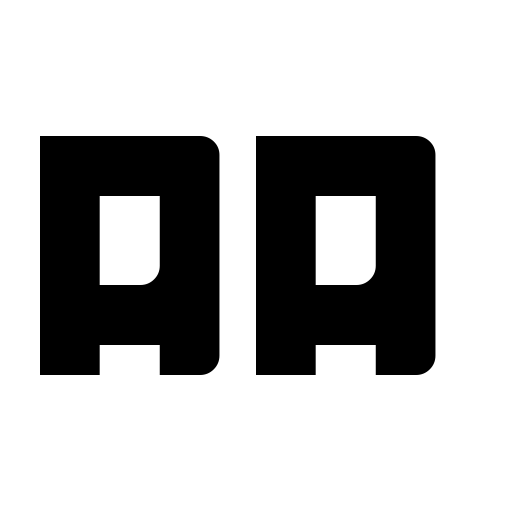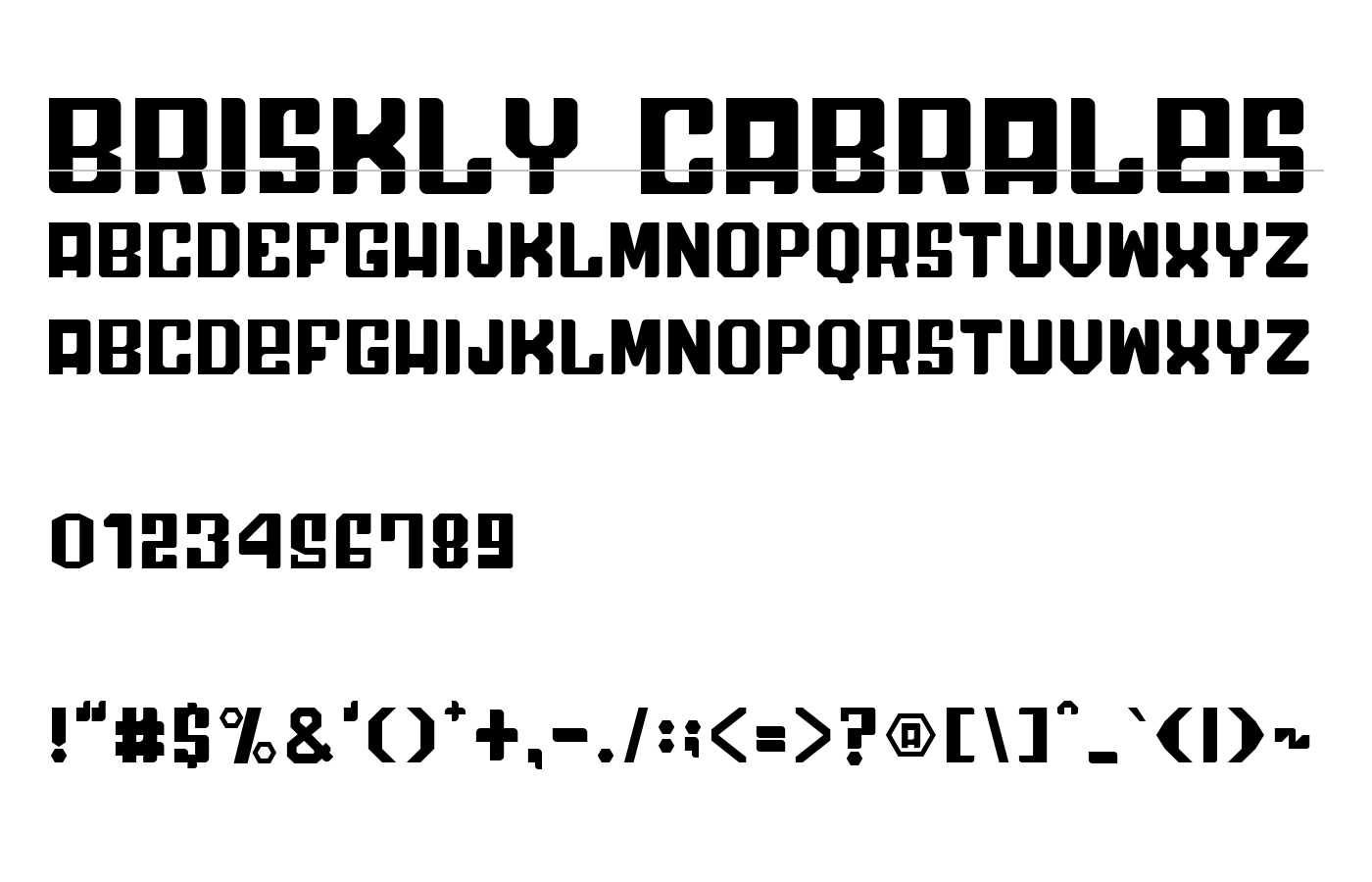
Briskly Cabrales is a bold, condensed sans serif font with a strong, geometric structure and uniform stroke weight that creates a modern, industrial feel. Its blocky letterforms and tight spacing convey a sense of strength and precision, making it ideal for headlines, packaging, and branding that require a confident, impactful look. This typeface works well for projects aiming for a contemporary, edgy style with clear readability and a distinctive personality.
Briskly Cabrales Font
About Briskly Cabrales Font
| Designer | Stefie Justprince |